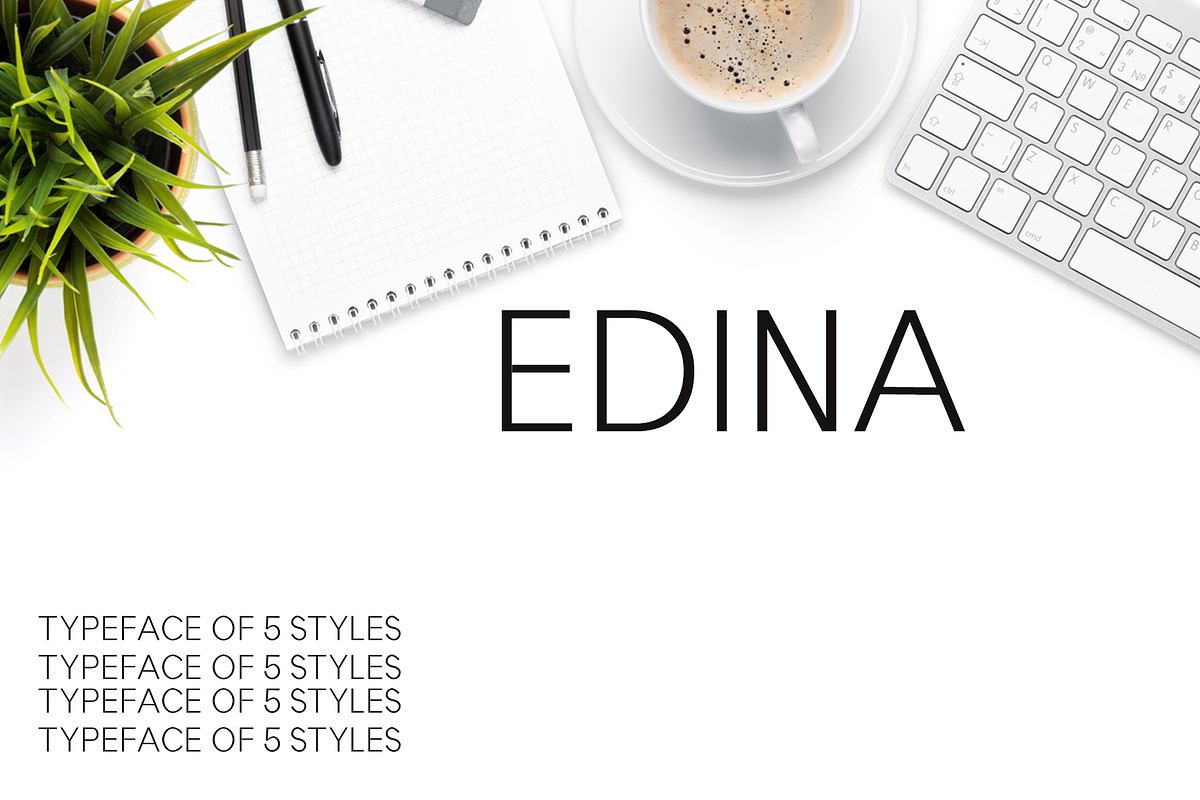
Edina Sans Serif Minimal Font Pack Free Download
Clean, crisp, and effortlessly modern — Edina Sans Serif Minimal Font Pack Free Download is the perfect choice for designers who value simplicity with style. This minimalist font pack is ideal for branding, editorial layouts, websites, fashion lookbooks, social media content, and presentations that call for a sleek, contemporary feel.
The Edina pack includes multiple weights and styles, allowing you to explore versatile design systems with a consistent, polished look. Its smooth curves, balanced spacing, and geometric construction make it readable and refined across both print and digital platforms. Uppercase, lowercase, numerals, and punctuation are all included for full creative control during your test phase.